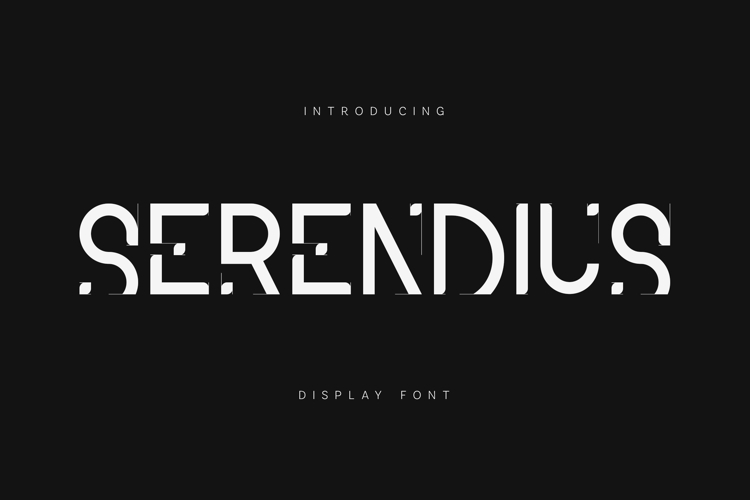
Serendius Futuristic Display Modular Glitch Tech
Serendius is a futuristic display font built on a modular system of controlled distortion. Inspired by digital loops, signal interference, and advanced tech aesthetics, it transforms fragmented geometry into a cohesive and striking typographic system.
Each character is precisely constructed with repeatable cuts and structured interruptions, creating a unique balance between clarity and disruption. The result is a bold, modern typeface that feels experimental yet highly usable across design applications.
Serendius is perfect for designers looking to create strong visual impact in tech-driven projects, branding systems, and contemporary layouts.
Perfect for• Futuristic branding
• Tech & AI visuals
• Posters & album covers
• Experimental layouts
• Motion graphics
• Digital interfaces
• Modular glitch system
• Clean geometric foundation
• High-impact display style